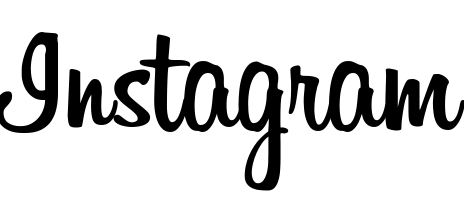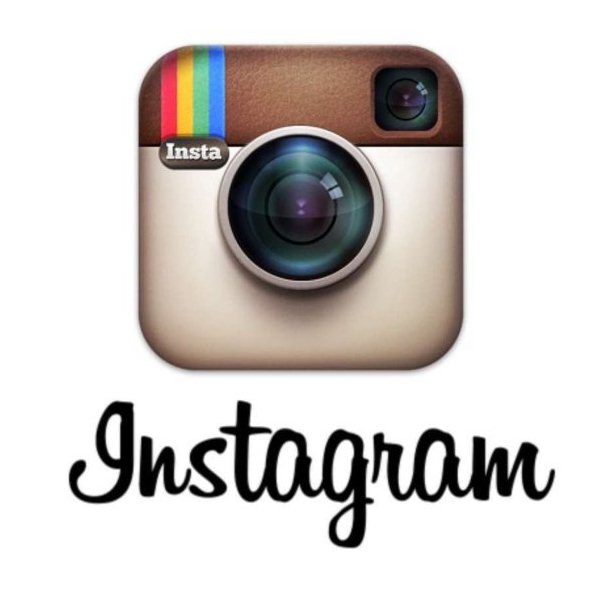
Instagram Font
Fonts in UseInstagram is a popular social media platform that allows users to share photos and videos, connect with friends, and discover new content through a visually-oriented interface.
Instagram's wordmark underwent changes in 2013 and 2016. In 2013, a new wordmark was introduced, designed by Mackey Saturday. Later, in 2016, the wordmark's color was changed to black following the launch of a new user interface and icon. The original Instagram logo featured a handwritten script similar to the Billabong font, while the closest font approximation for the current wordmark is Blue Vinyl, created by Jess Latham.